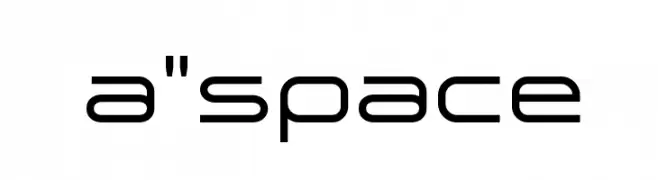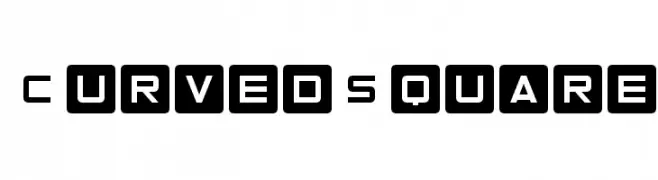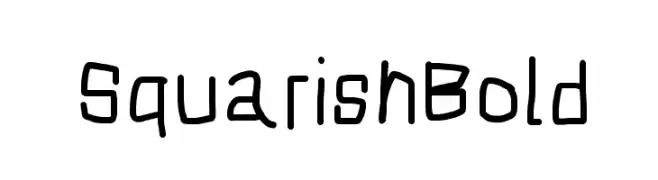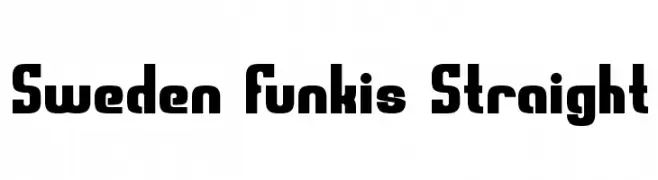
A modern, geometric font with a futuristic and minimalistic design.
A bold, three-dimensional font with a playful and modern aesthetic.
A bold, decorative font with characters encased in rounded squares, offering a retro-modern aesthetic.
A geometric, angular font with a modern and technical aesthetic.
A geometric, angular font with a modern and futuristic style.
A geometric, angular font with consistent stroke width and a modern, minimalistic design.
A geometric, angular font with thin strokes and a futuristic style.
A bold, geometric font with angular, blocky letterforms and a modern-retro vibe.
A bold, modular font with a mechanical and industrial aesthetic.
A modern, geometric sans-serif font with rounded edges and uniform stroke width.
A bold, geometric font with a modern, industrial style.
A bold, rounded font with smooth curves and a modern, approachable style.
A geometric, modular font with angular, boxy letterforms and a futuristic style.
A modern, geometric font with a digital, tech-inspired aesthetic.
A hollow, geometric font with a modern, tech-inspired design.
A bold, angular font with a geometric and edgy style.
A bold, tubular font with a futuristic, circuit-like design.
A bold slab serif font with rounded edges, perfect for impactful headlines.
A bold, angular font with a futuristic and geometric design.
A bold, industrial font with a mechanical, futuristic aesthetic.
Uniform, bold, monochrome social media and web service icon set.
A bold, geometric font with sharp angles and a futuristic style.
A bold, pixelated font with a retro digital aesthetic.
A geometric, abstract font with bold, block-like shapes and a futuristic aesthetic.
A bold ornamental dingbat collection with floral, geometric, and flourish motifs.
A playful, tech-inspired font with bold, rounded lines and geometric structure.
A futuristic, geometric font with clean lines and a tech-inspired aesthetic.
A sleek, modern italic font with geometric lines and a futuristic feel.
A bold, futuristic font with rounded edges and expanded width.
A bold, geometric font with a modern, tech-inspired design.
A modern, geometric outline font with a semi-italic slant.